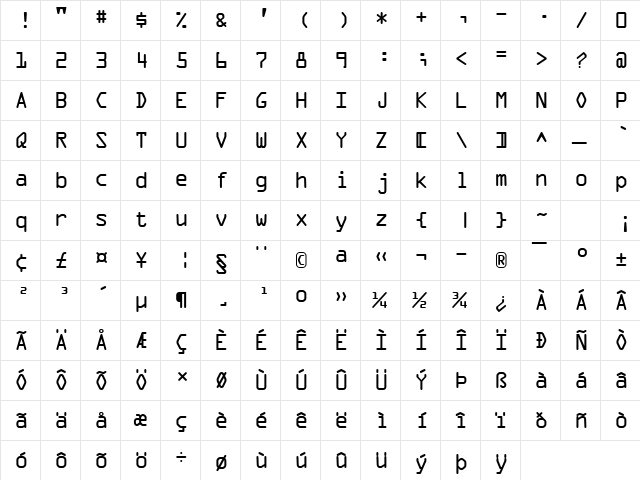
ALIEN Extended Regular
Design Context for ALIEN Extended Typeface
ALIEN Extended is a composed and adaptable typeface that performs quietly and consistently across a wide range of design contexts.